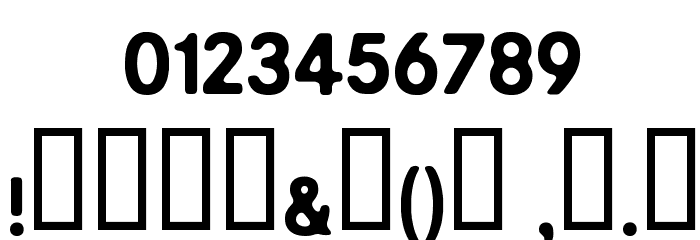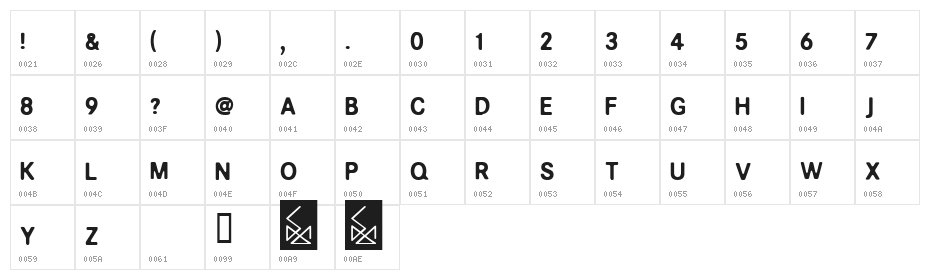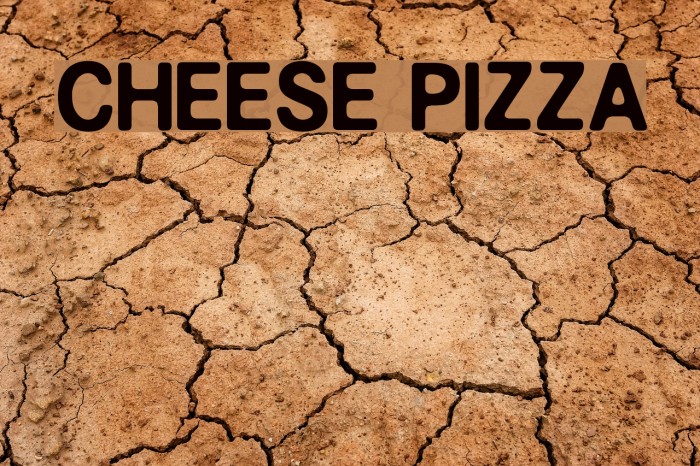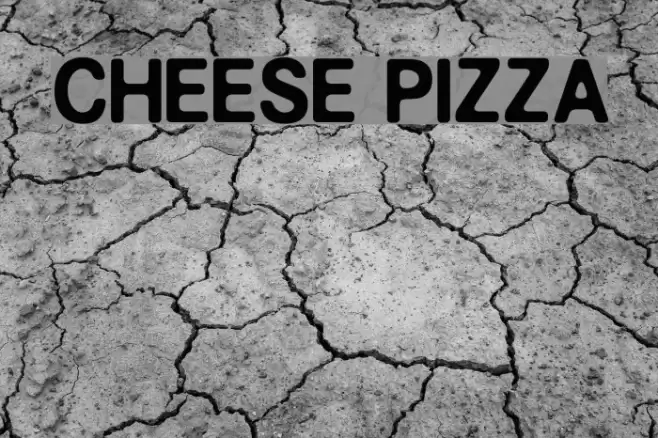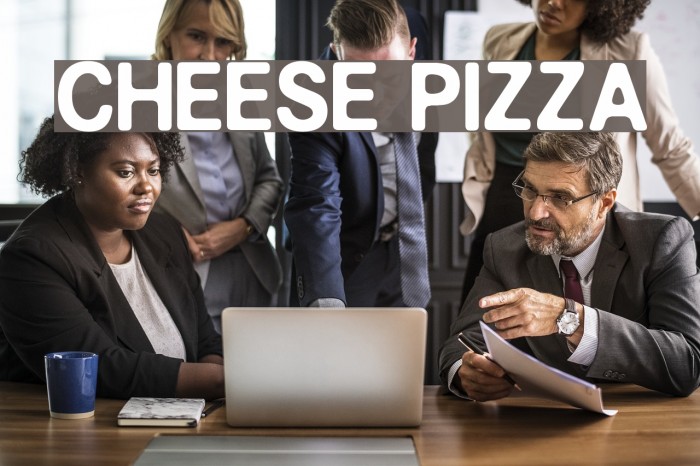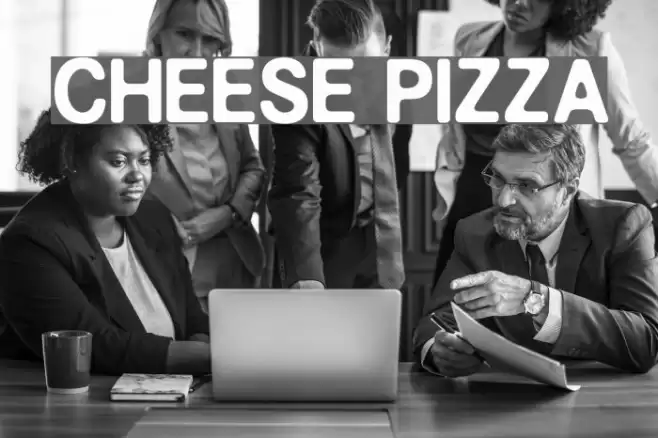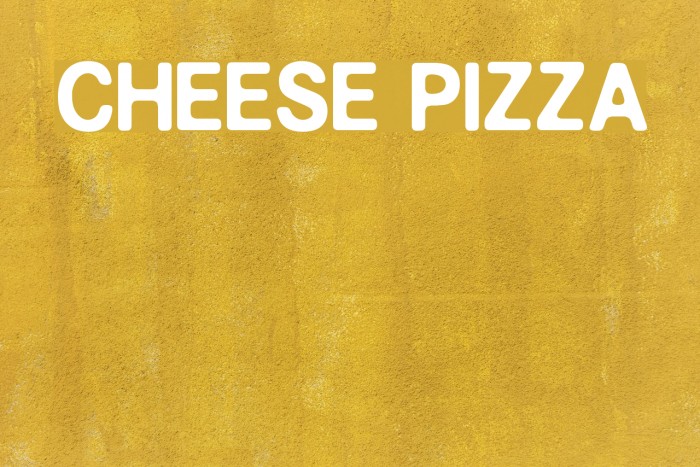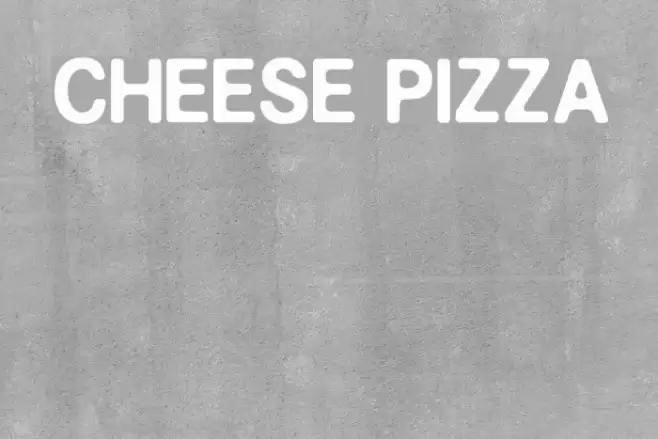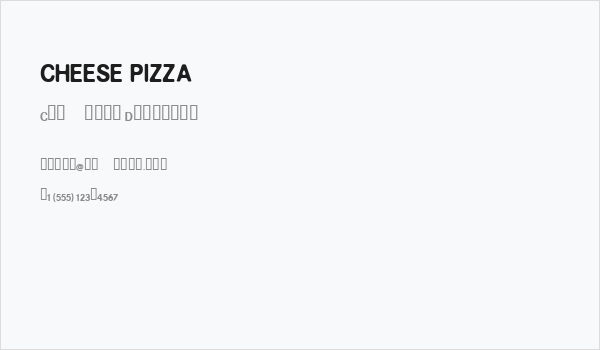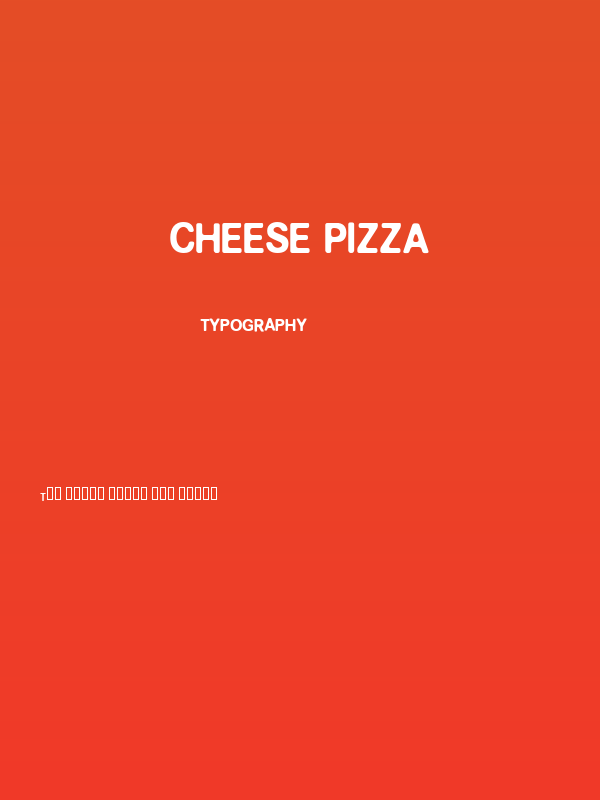
CHEESE PIZZA Font
CHEESE PIZZA Description
This font features bold, rounded characters that convey a sense of friendliness and approachability. The uppercase letters are uniform in height and width, creating a balanced and cohesive look. The numerals are similarly rounded, maintaining consistency across the character set. The special characters, including punctuation marks, are designed with the same rounded style, ensuring they blend seamlessly with the letters and numbers. The overall appearance is modern and clean, making it suitable for a variety of design applications.
| Proposed Projects | Ideal for branding, packaging, children's books, and playful design projects. |